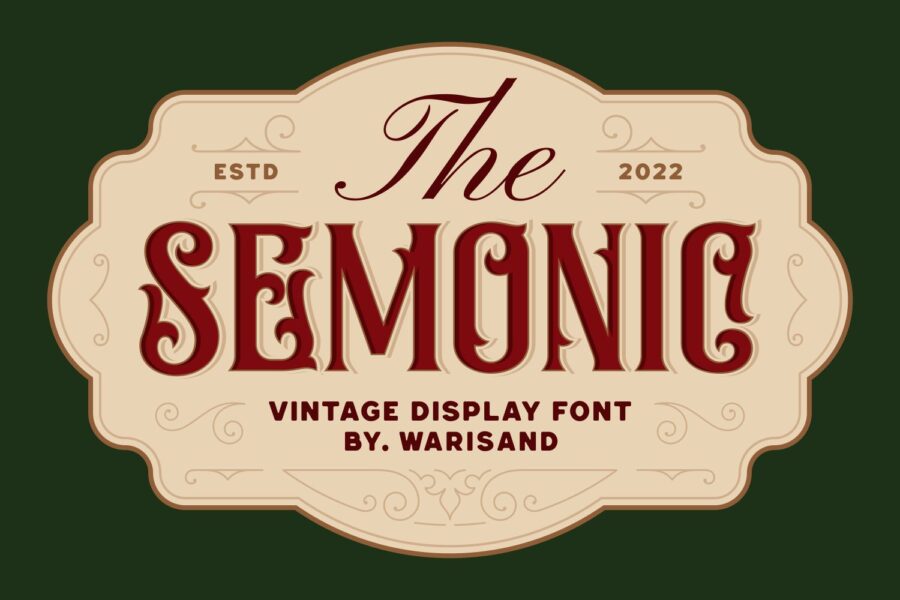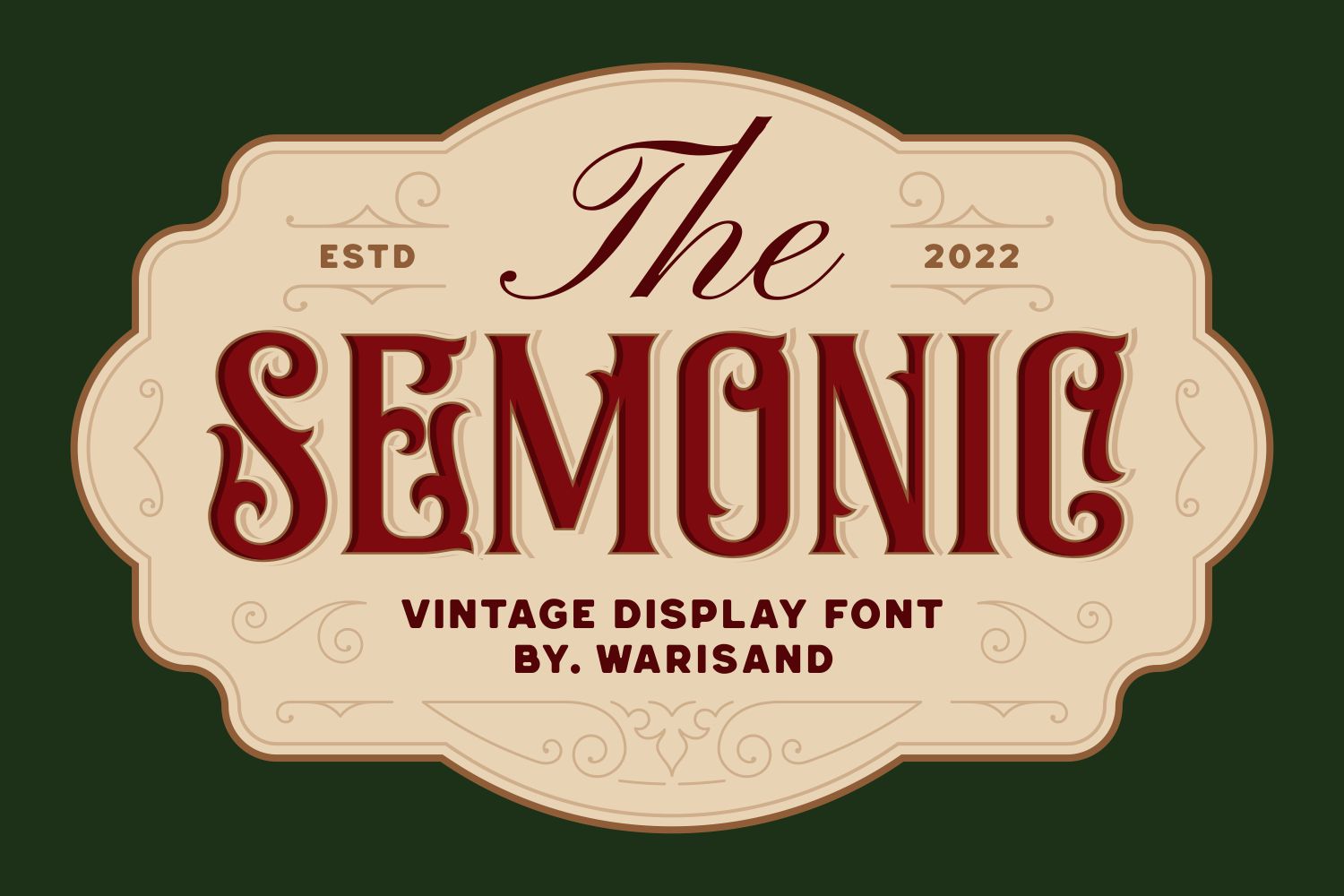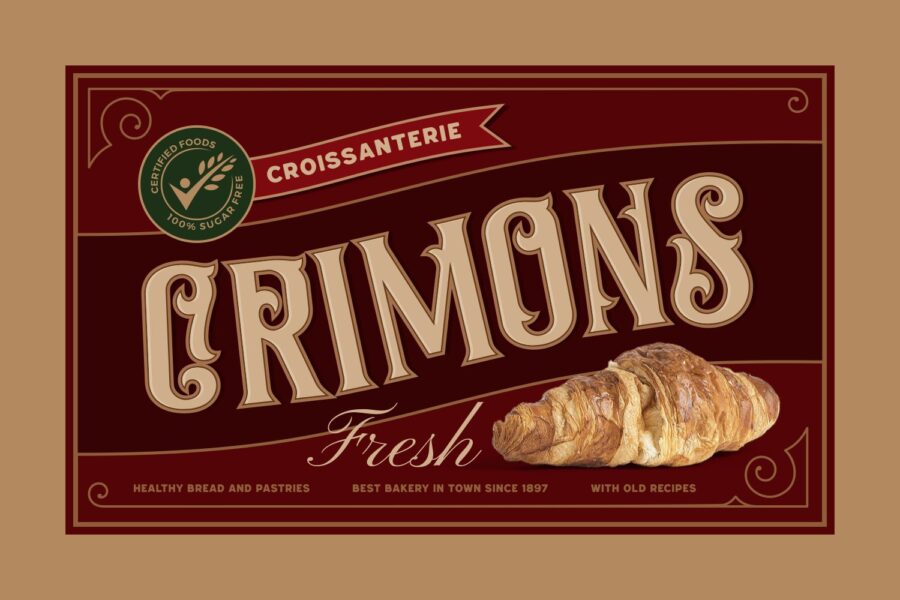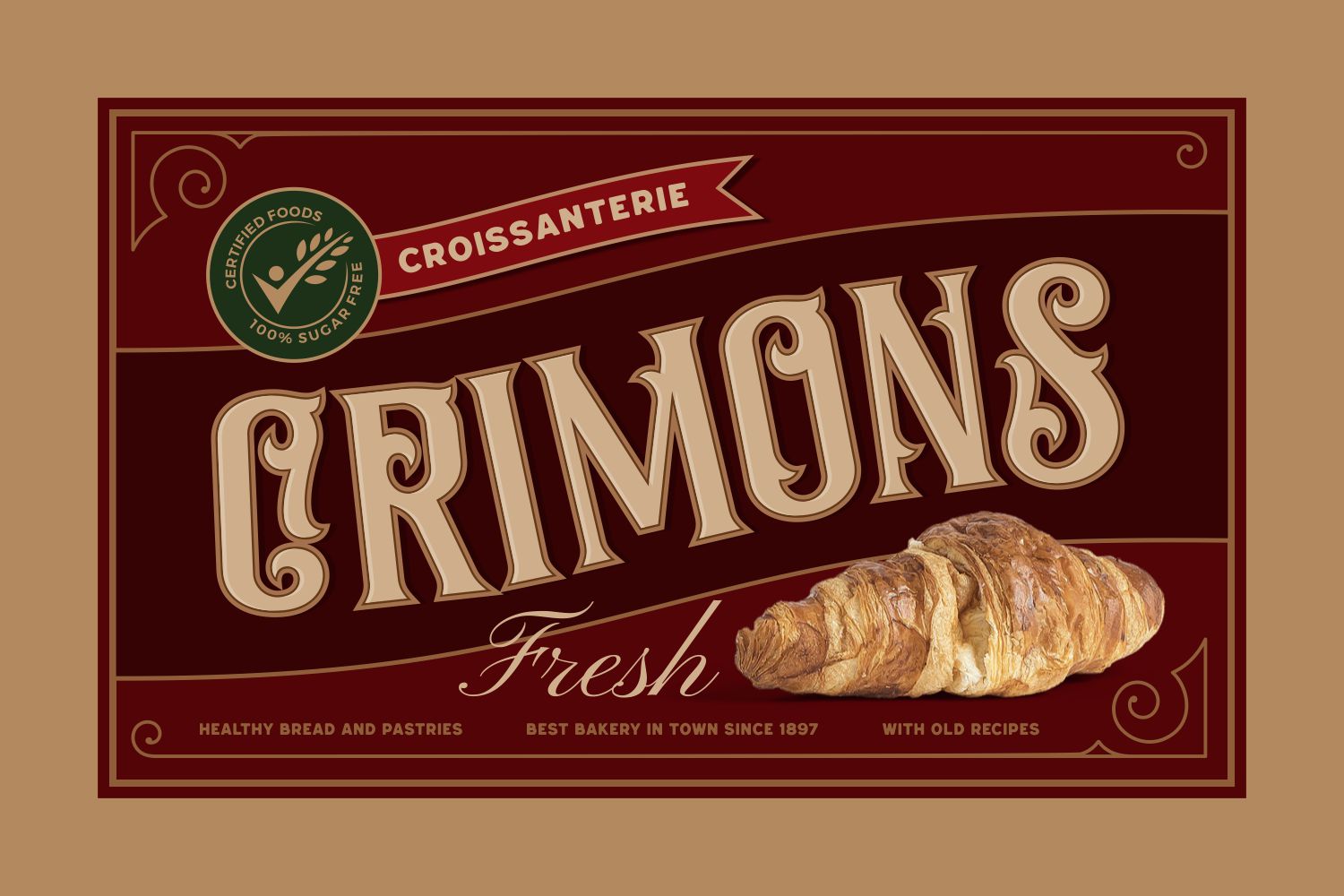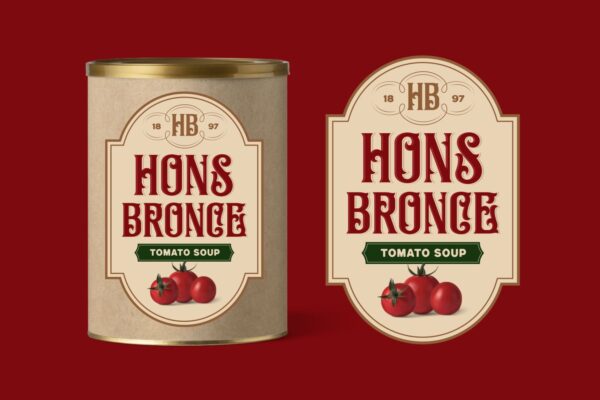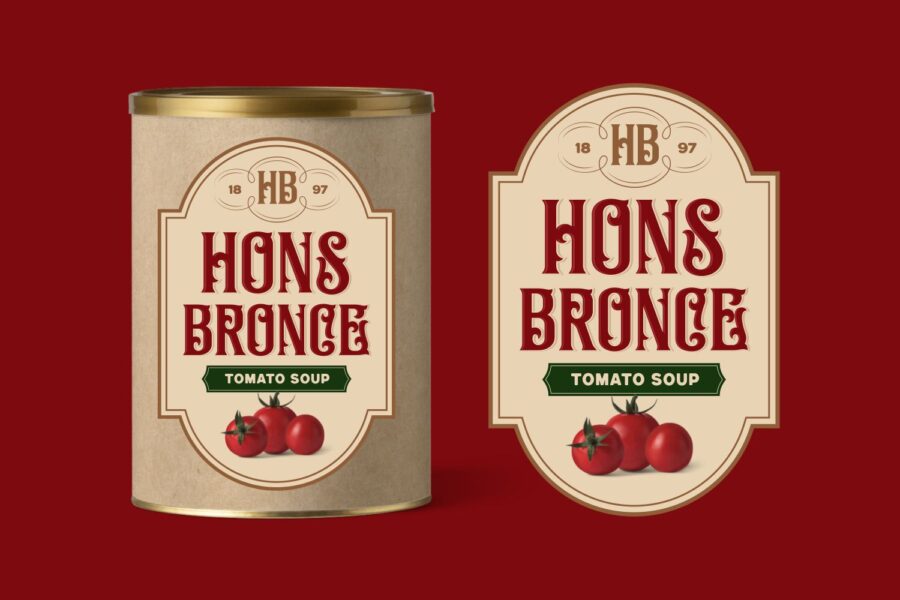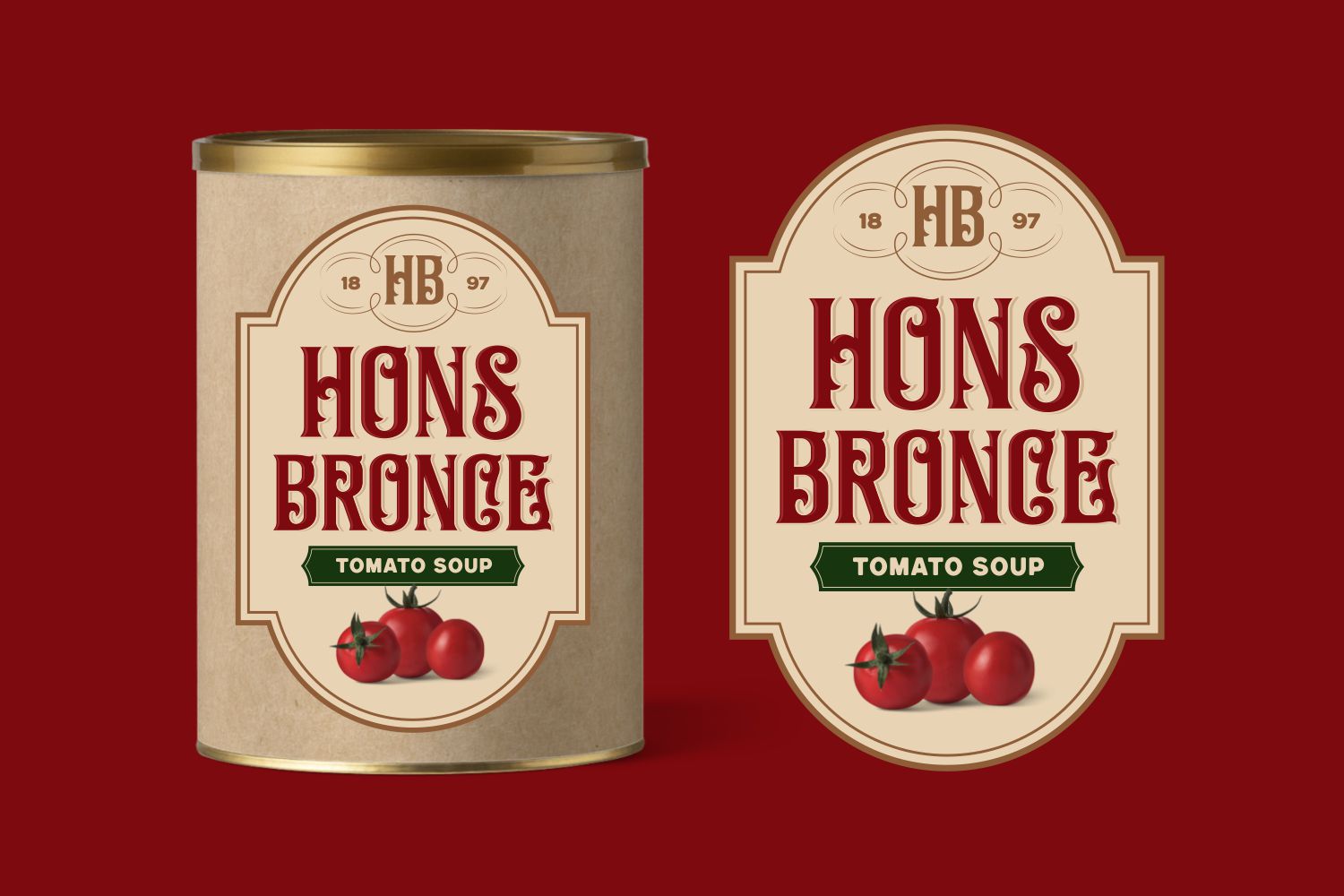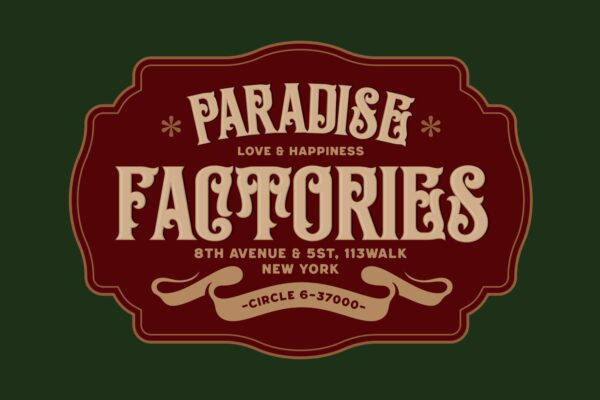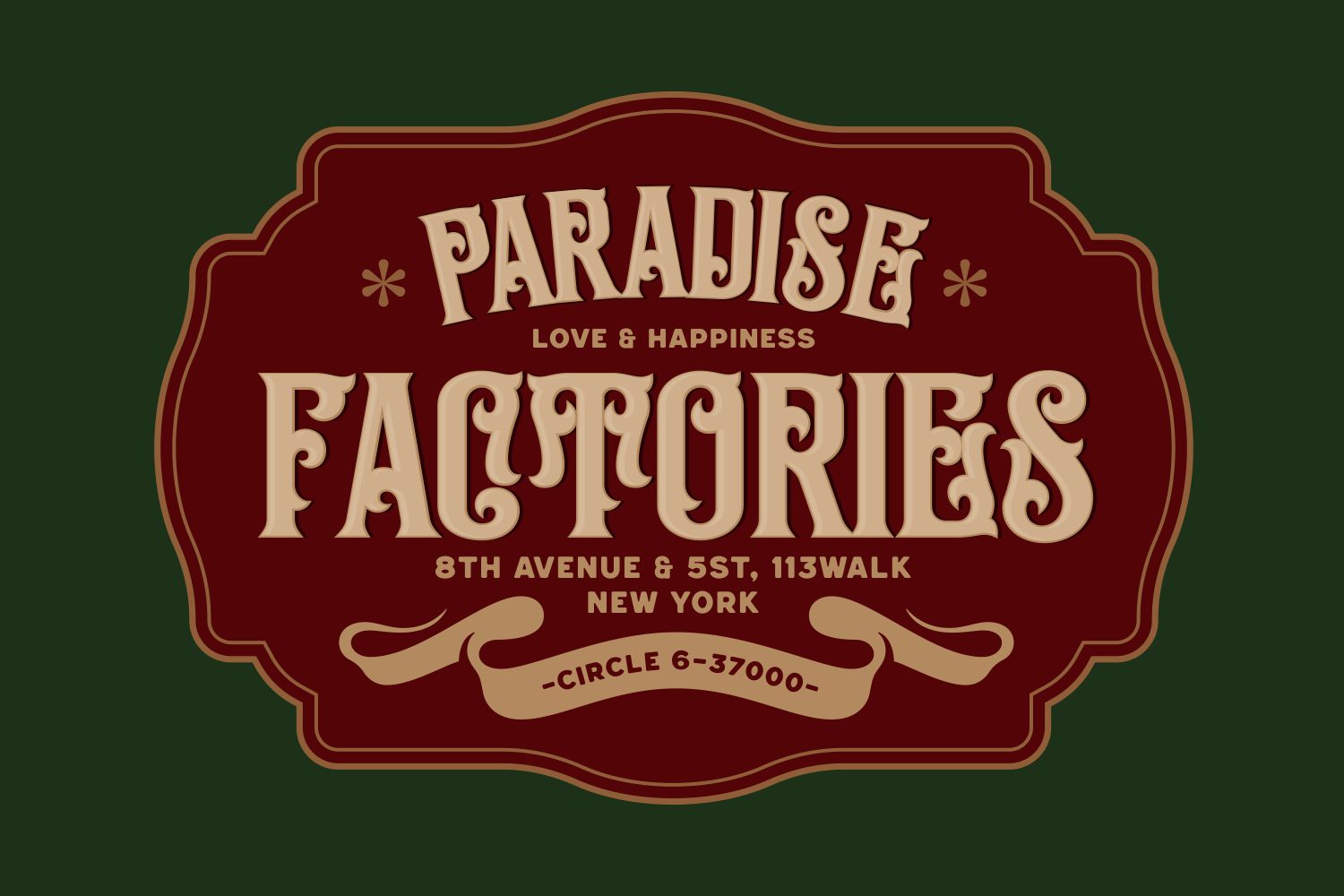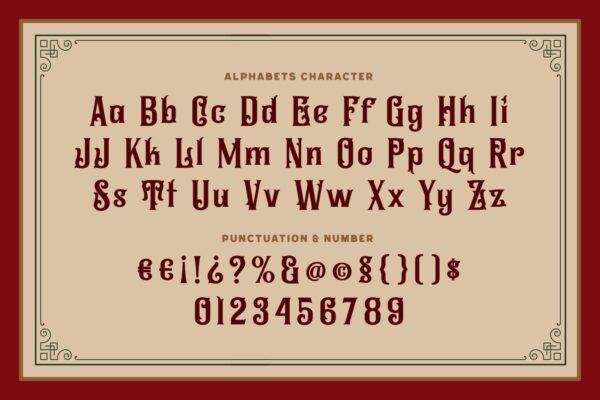
Semonic is a vintage display font that blends classic ornamental aesthetics with a bold, eye-catching presence. Inspired by traditional packaging and storefront lettering, this font features elegant curves, sharp serifs, and decorative alternates that evoke a timeless, handcrafted charm. It includes a full set of uppercase and lowercase characters, numerals, punctuation, and multilingual symbols to support various design needs.
Ideal for retro branding, food packaging, signage, and label designs, Semonic adds a touch of nostalgia and authenticity to any visual project. Whether you’re designing a classic bakery logo, a rustic café label, or a historical event poster, this font gives your typography a rich, vintage personality that stands out effortlessly.